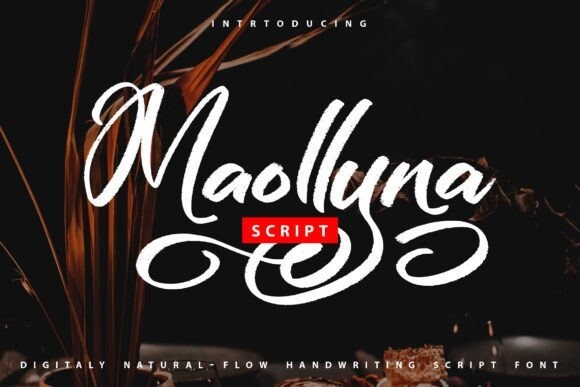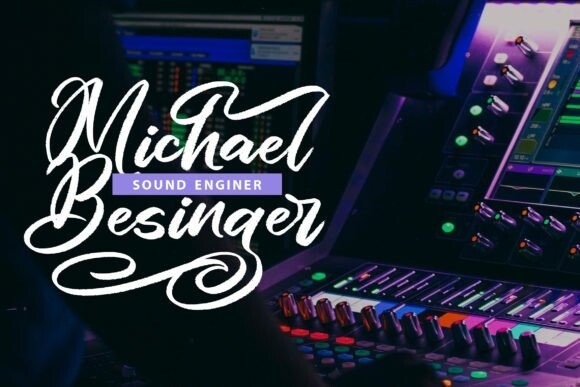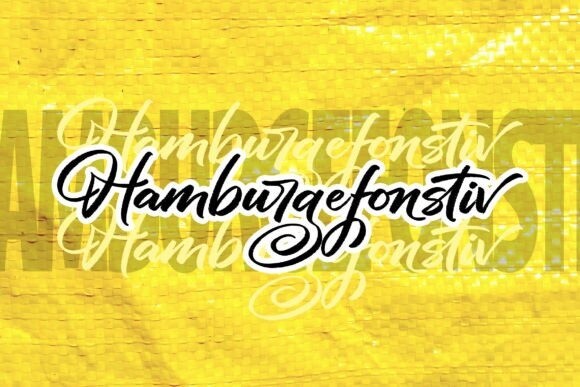
Maollyna Font
Maollyna is a natural handwritten font with a calligraphy style. It looks so beautiful on invitations like greeting cards, branding materials, business cards, quotes, posters, and more!